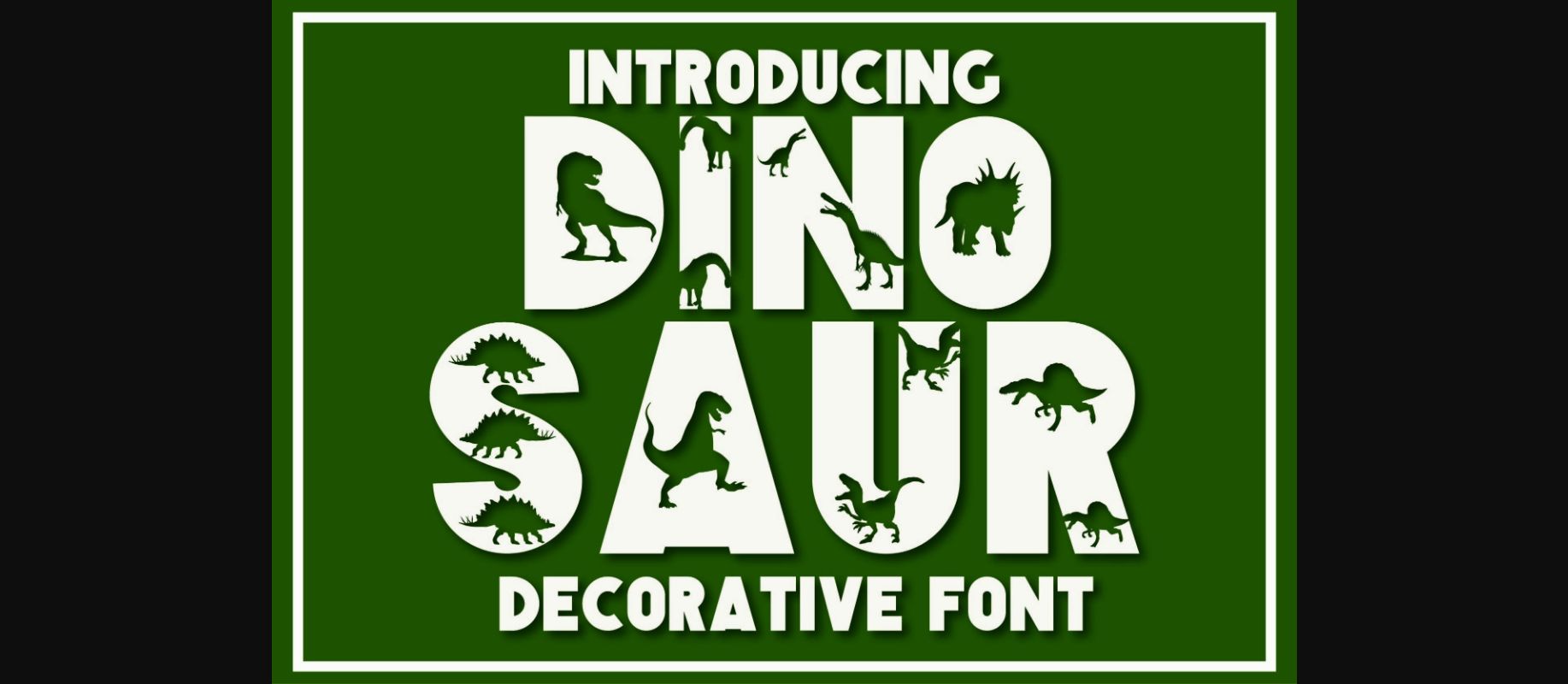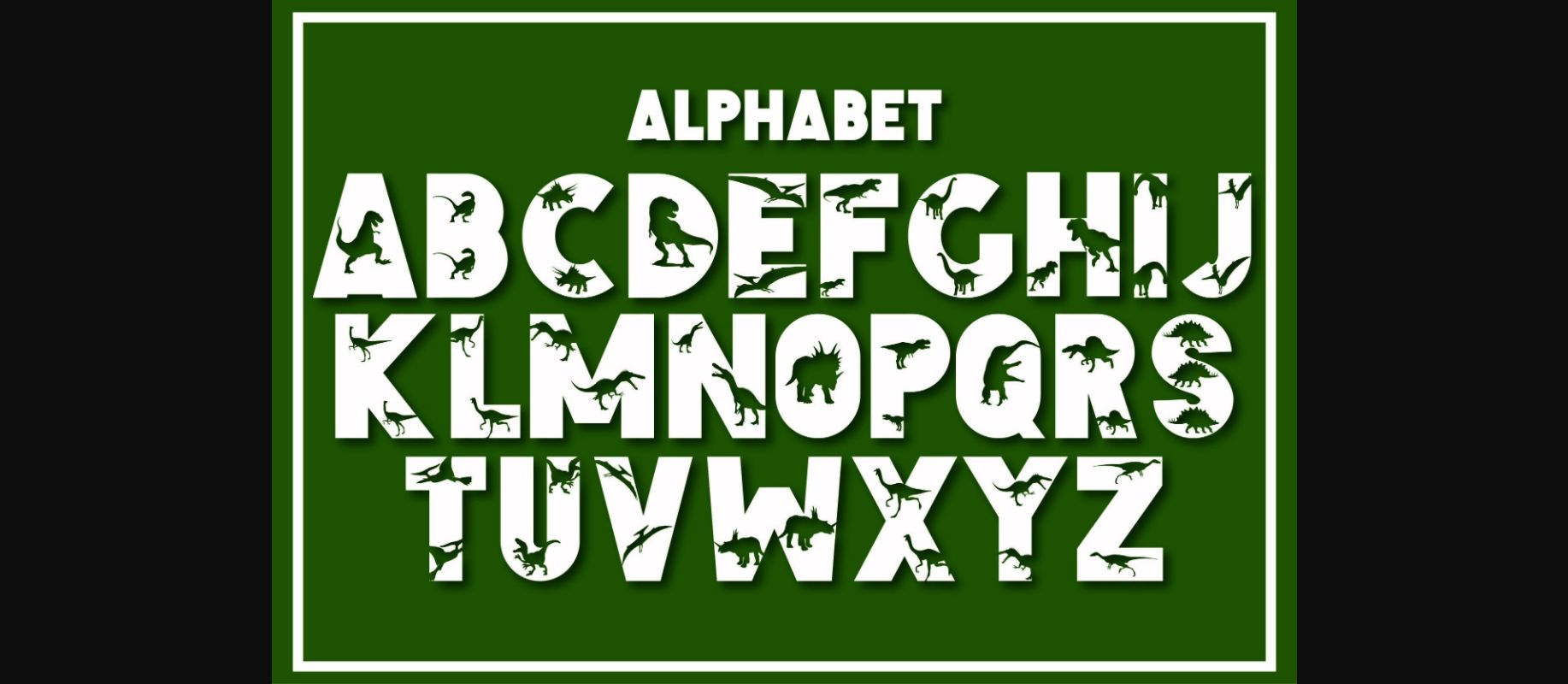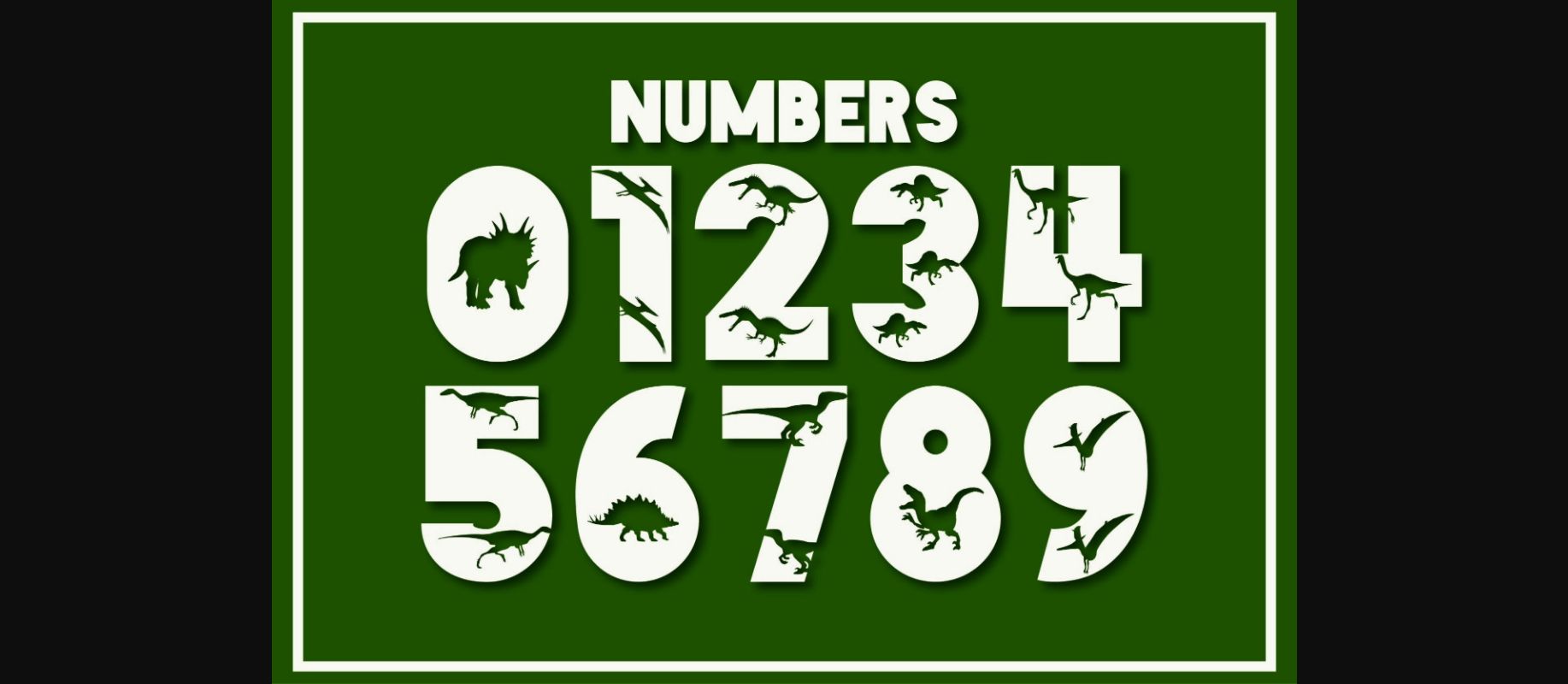
HomeDecorative FontsDinosaur Font Decorative Fonts Dinosaur Font FacebookXPinterestWhatsApp 1 of 5 ... Dinosaur Font Poster 2... Dinosaur Font Poster 3... Dinosaur Font Poster 4... Dinosaur Font Poster 5... About Dinosaur Font Dinosaur is a fun and chunky-lettered decorative font featuring lovely dinosaurs as ornaments. This original look will appeal to a wide range of crafty ideas, from letterheads and titles to stationery. DOWNLOAD NOW People also explored Joeman Font Good Story Font Aharon Font Tangatdraw Font Los Porttal Font Belithel Font Wine Font Partmon Font Sparks Fly Font 312 0 TagsDinosaur Font Previous articleSpidey Creepy FontNext articleGlam Monogram Font LEAVE A REPLY Cancel reply Comment: Please enter your comment! Name:* Please enter your name here Email:* You have entered an incorrect email address! Please enter your email address here Website: Save my name, email, and website in this browser for the next time I comment. Personal Use Free Engine Personal Use Free Read more about this font Austin Personal Use Free Read more about this font Imelda Personal Use Free Read more about this font Mandara Personal Use Free Read more about this font BLOG Fonts That Capture the Spirit of New York City New York City is more than just a place—it’s an experience, a rhythm, a visual language... Where to Buy American Fonts Online in 2024 Top 7 Google Fonts Alternatives for Faster and Privacy-Friendly Web Design (2025) How to Cut Any Font on Cricut: Convert a Font to SVG (Free)